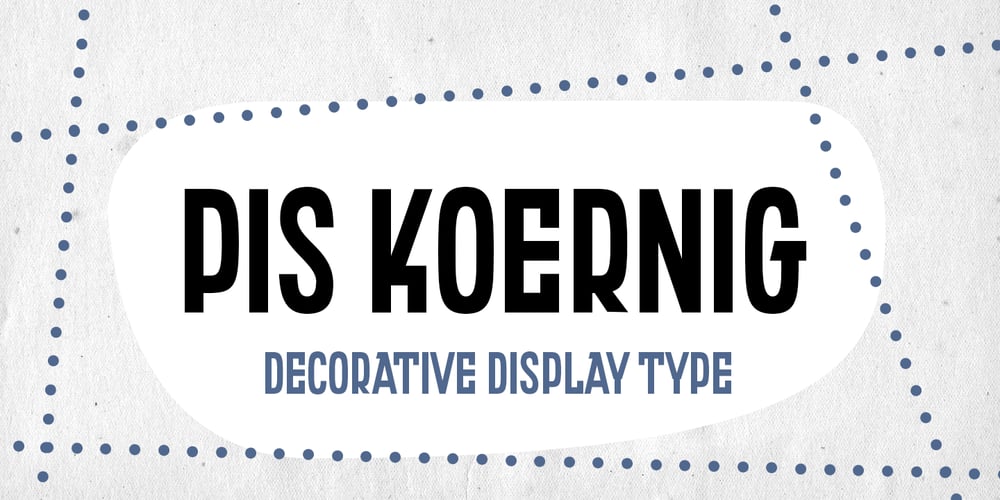
PiS Koernig Font Family was designed by Hannes Siengalewicz and published by PiS. PiS Koernig contains 1 styles and family package options. PiS Koernig is inspired by handwritten alphabets from Max Körner’s book „Das Neue Schriftenbuch“ from 1949 featuring bold and decorative display type for use in sign painting and advertising. It features clean and readable glyphs as well as quirky deco alternate letters in Max Körner’s original style to add some 1950ies flavour to your projects. Be sure to use E and F caps + alternates for some labyrinth-esque patterns!